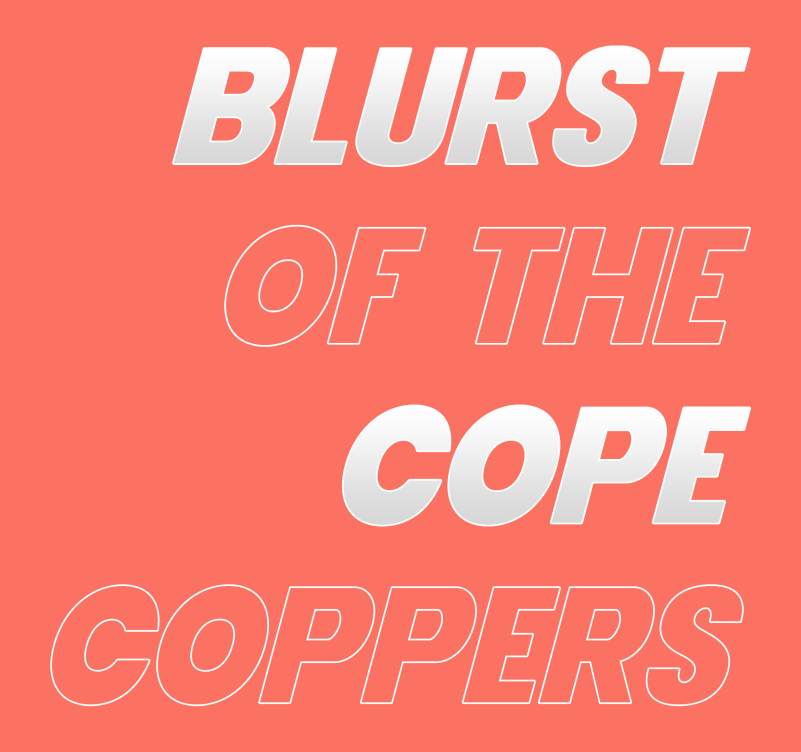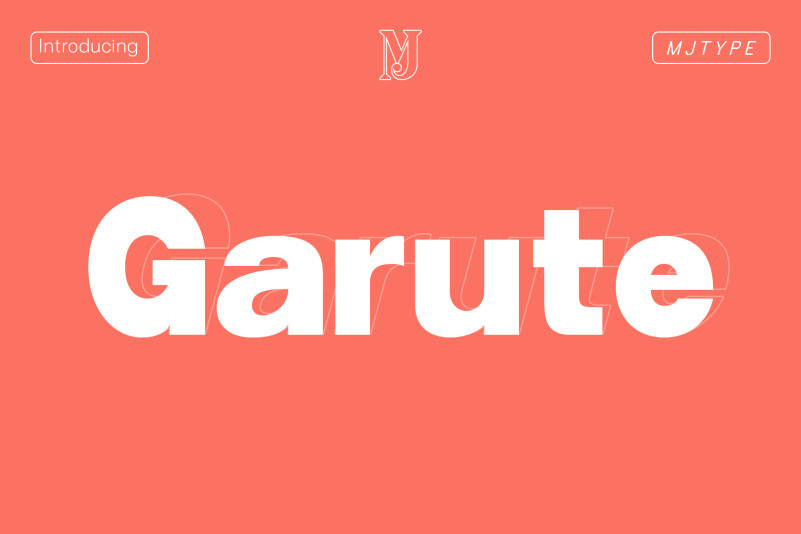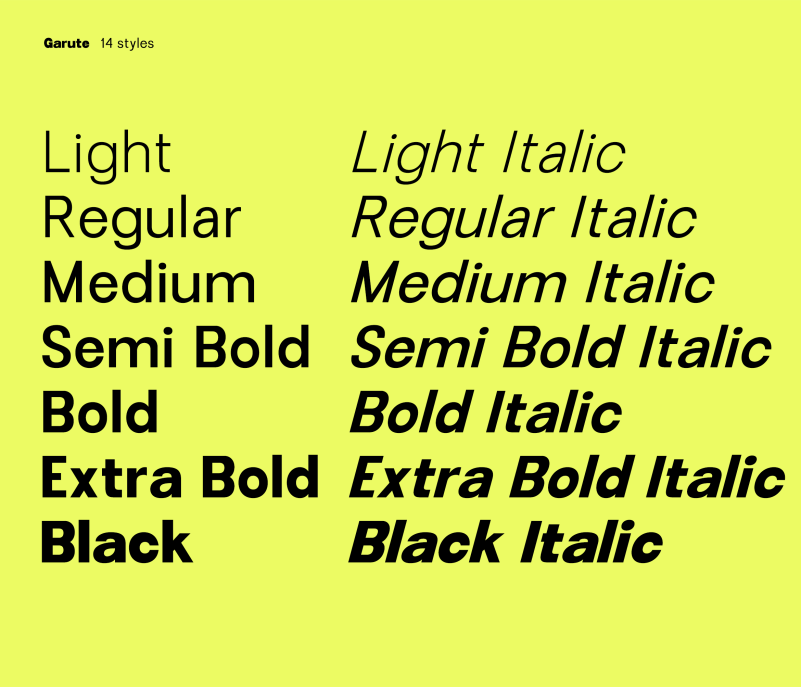
Garute Font
Garute Sans Serif Font, a modern sans serif typeface that brings personality and style to your designs. Its clean, straight lines and contemporary feel make it perfect for modern design projects such as logos, headlines, posters, t-shirts, and business cards. Garute is free for both personal and commercial use, but we always appreciate donations to support our work. Start creating unique and elegant designs with Garute today!